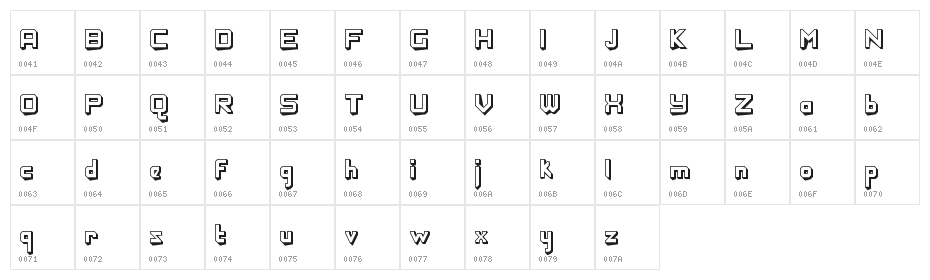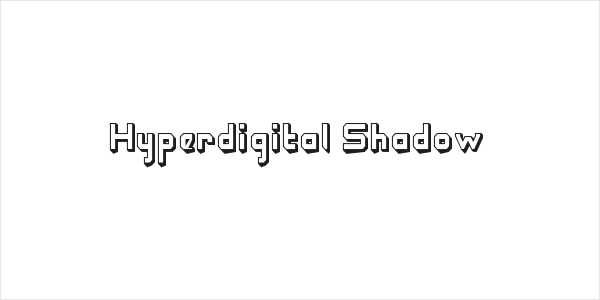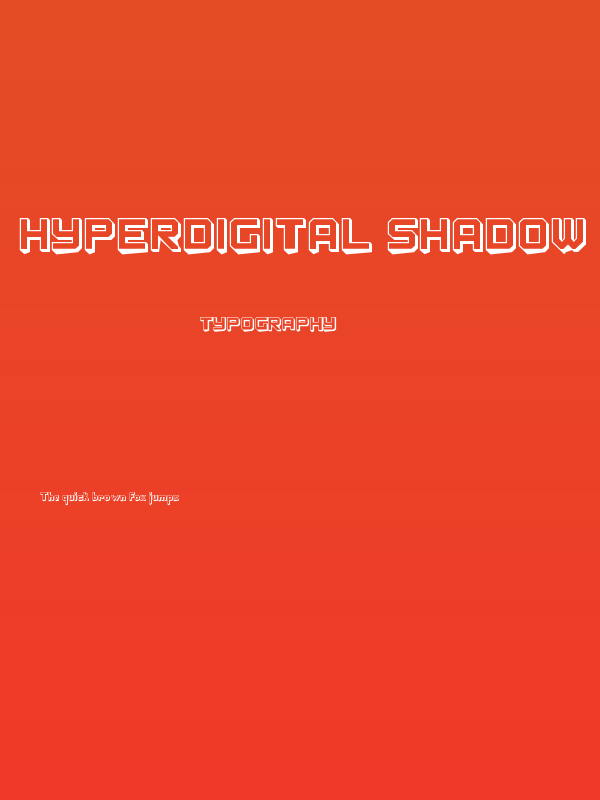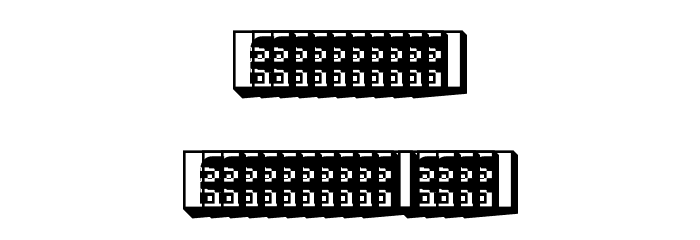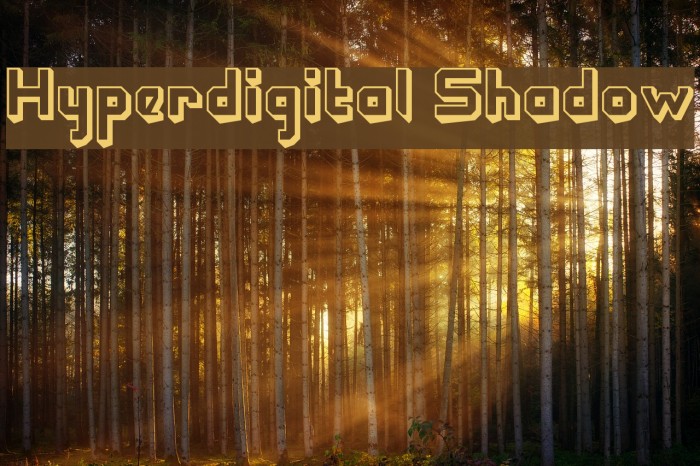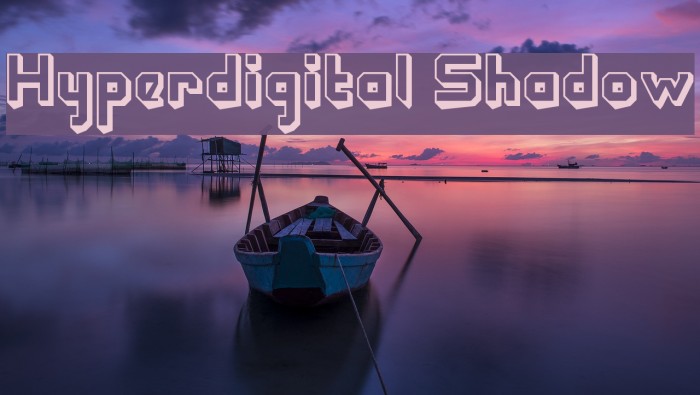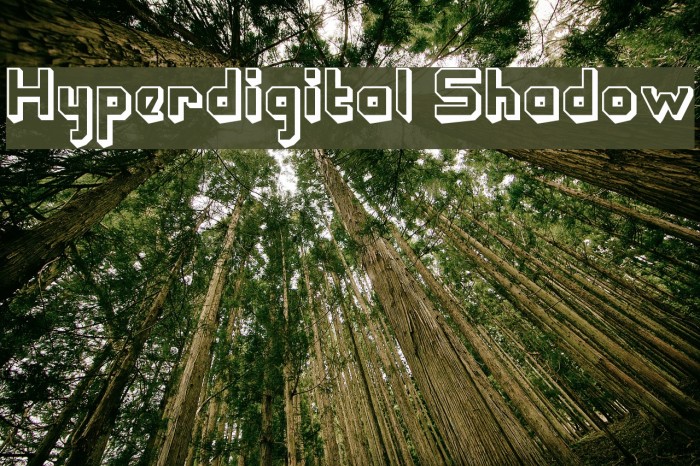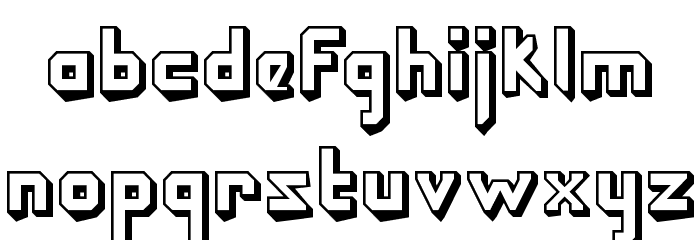
Hyperdigital Shadow Font
Hyperdigital Shadow Description
This font features a bold, geometric design with a distinct shadow effect that gives it a three-dimensional appearance. The characters are constructed with sharp angles and clean lines, creating a futuristic and digital aesthetic. The uppercase and lowercase letters maintain a consistent style, with the shadow adding depth and a sense of movement. The numerals and special characters are designed to match the overall theme, ensuring uniformity across all glyphs. This font is ideal for projects that require a modern and tech-inspired look.
| Proposed Projects | Ideal for digital art, tech branding, video game titles, and futuristic posters. |